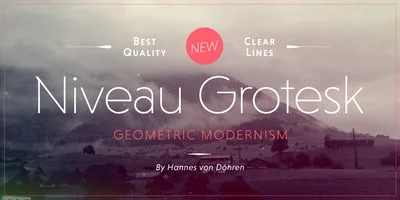
Niveau Grotesk Font
Niveau Grotesk Font is ideal for modern architecture firms, contemporary design studios, minimalist brand identities, Swiss design projects, clean corporate communications, industrial design materials, Bauhaus-inspired layouts, modernist exhibition catalogs, geometric art galleries, and progressive institutional branding.
What makes Niveau Grotesk Font exciting is its systematic precision and modernist clarity that embodies the principles of functional design with Germanic efficiency and architectural sophistication. This distinguished typeface captures the essence of Swiss typography with its geometric character forms and rational proportions that evoke precision engineering, clean modernist buildings, and the systematic design philosophy that prioritizes function over decoration. The font's modernist character creates an immediate impression of professional competence and the kind of rational design thinking that defines contemporary Swiss design excellence.
Niveau Grotesk Font family includes regular weight with systematically crafted character designs featuring geometric proportions and modernist styling. The typeface maintains exceptional readability while showcasing its distinctive rational personality through precisely designed letterforms that reflect the mathematical harmony and functional beauty of Swiss graphic design traditions.
Design professionals consistently select Niveau Grotesk Font for projects requiring authentic modernist appeal and Swiss design credibility. This remarkable typeface brings the clarity of systematic design to brand communications, combining geometric aesthetics with functional excellence to create memorable modernist experiences. The systematically designed characters ensure professional positioning across all applications, making it essential for design studios, architectural firms, and any organization seeking to communicate the rational excellence and systematic quality that defines Swiss design philosophy through Niveau Grotesk Font.